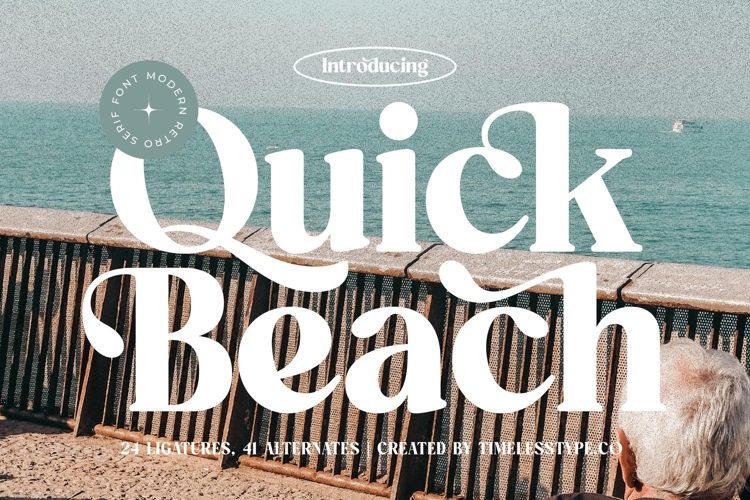
Quick Beach - Modern Retro Serif Font
Quick Beach is a modern retro serif font that combines bold elegance with playful decorative energy. With its chunky letterforms, whimsical curves, and stylish terminals, this typeface captures the charm of vintage aesthetics while staying relevant for contemporary design. Featuring 24 ligatures and 41 alternates, Quick Beach provides designers with flexibility to craft unique, expressive layouts that stand out with personality and flair. Its retro-modern look makes it a perfect choice for projects that want to balance fun, sophistication, and timeless appeal.